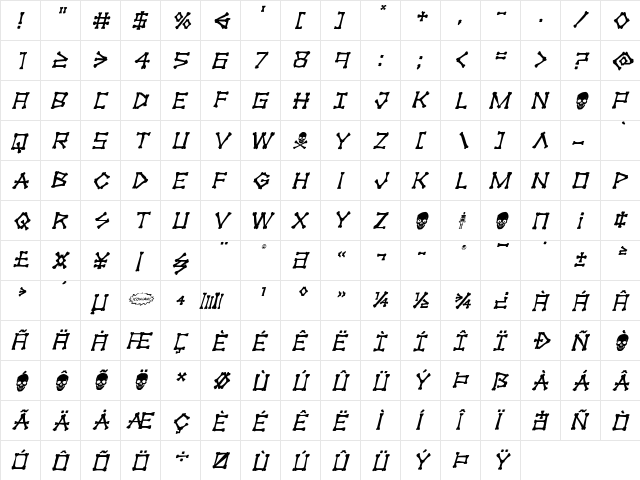
xBONES Rough Italic Italic
Design Context for xBONES Rough Italic Typeface
xBONES Rough Italic embraces imperfection — its rough, textured character adds raw authenticity to designs that want to feel lived-in and unconventional. The dynamic lean of this cut emphasises speed and emphasis in any layout.
A strong fit for alternative music projects, graffiti-adjacent design, and anything that deliberately resists polish.
Pro Tip: Use xBONES Rough Italic at larger sizes where the texture and irregularity of each letterform can be clearly seen — it loses its character at small sizes.